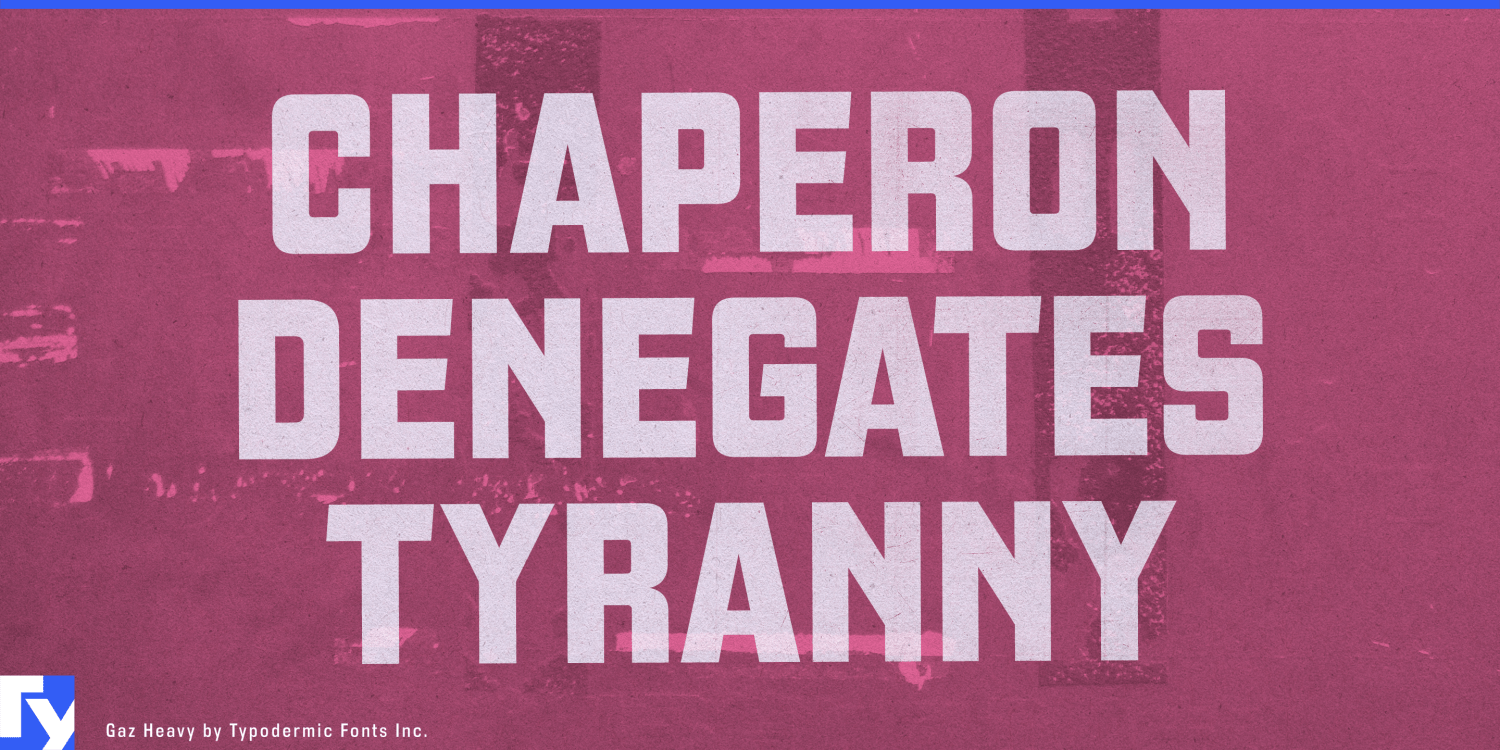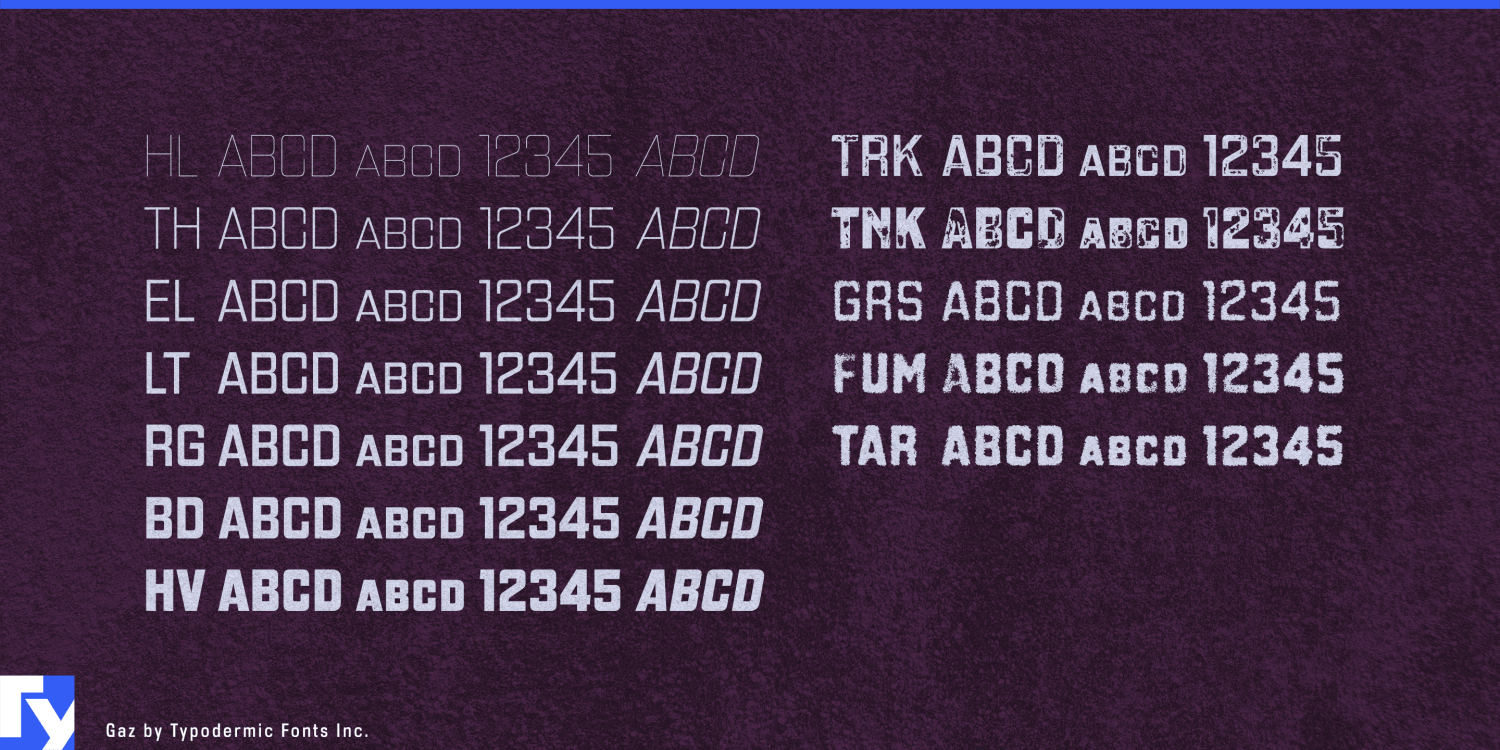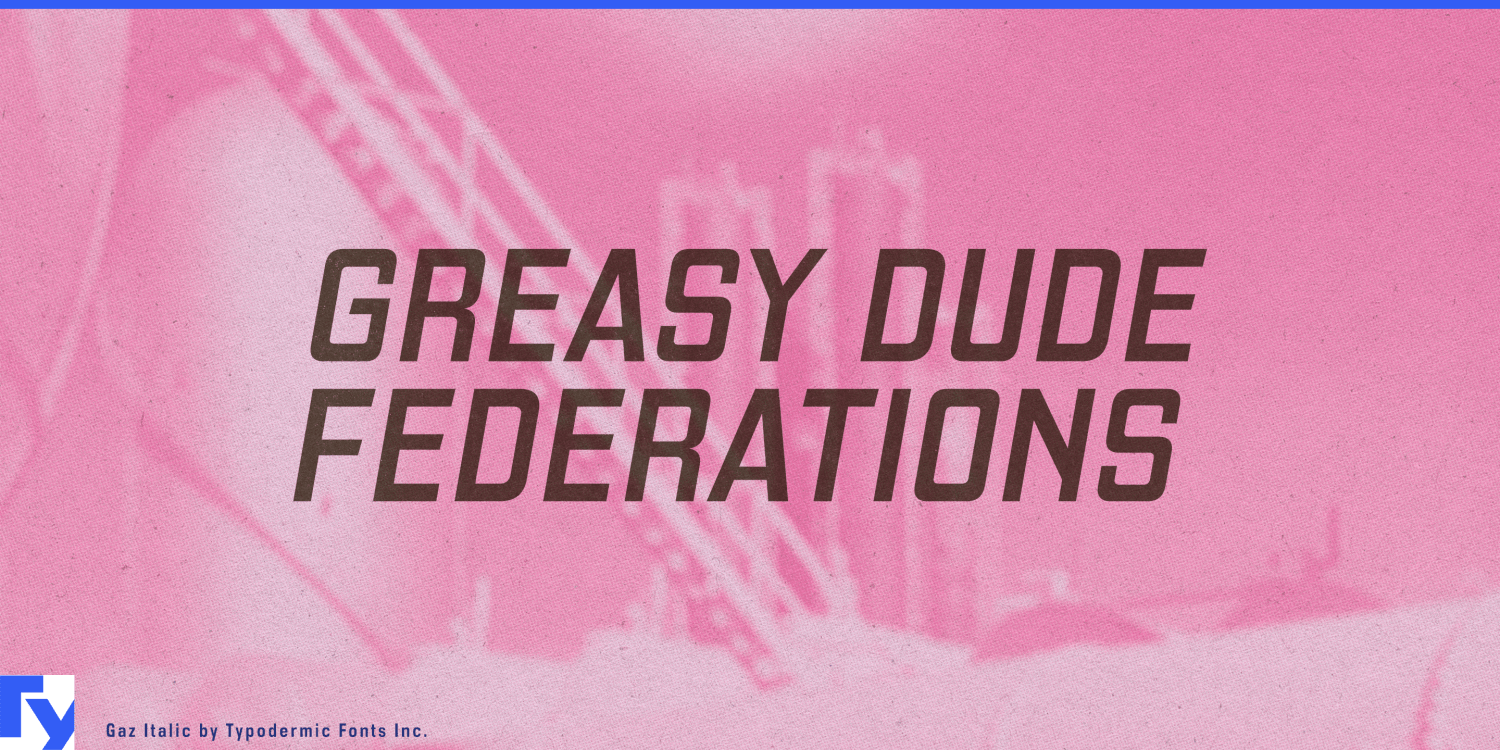
Fuel your designs with Gaz, a square display typeface that ignites the spirit of 20th-century gasoline station signs. This font doesn’t just nod to the past—it roars down memory lane with the power of a vintage V8 engine, all while maintaining…